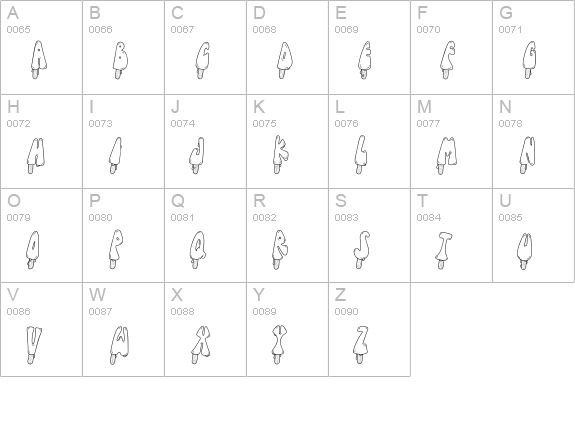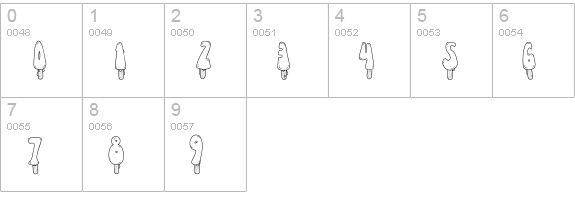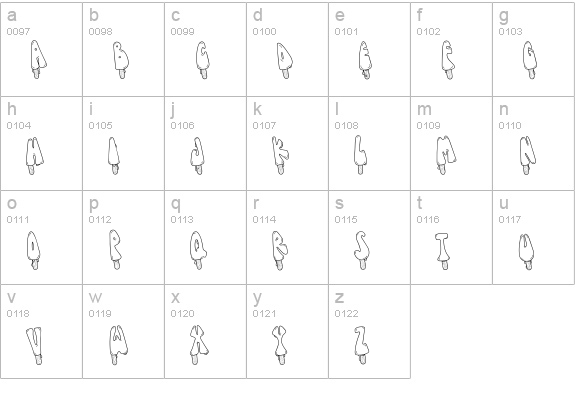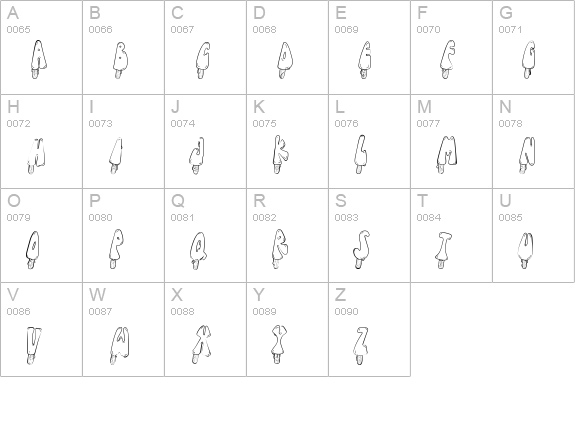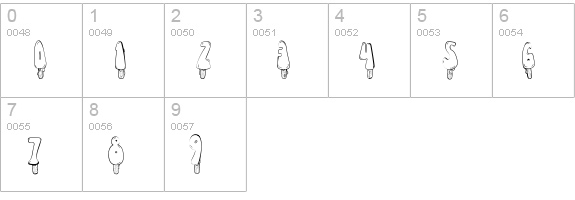
CK Popsicle Font Details
Introducing CK Popsicle, a fun and playful font that will add a touch of whimsy to your projects. This delightful typeface features rounded edges and a hand-drawn feel, perfect for creating eye-catching designs. CK Popsicle is a versatile font that is ideal for a variety of projects, from branding to social media graphics to children's book covers. What makes CK Popsicle even better is that it is completely free to download at FontsMarket.com. Yes, you read that right - this charming font is available for you to use in your personal and commercial projects without any cost. So go ahead and unleash your creativity with CK Popsicle today!